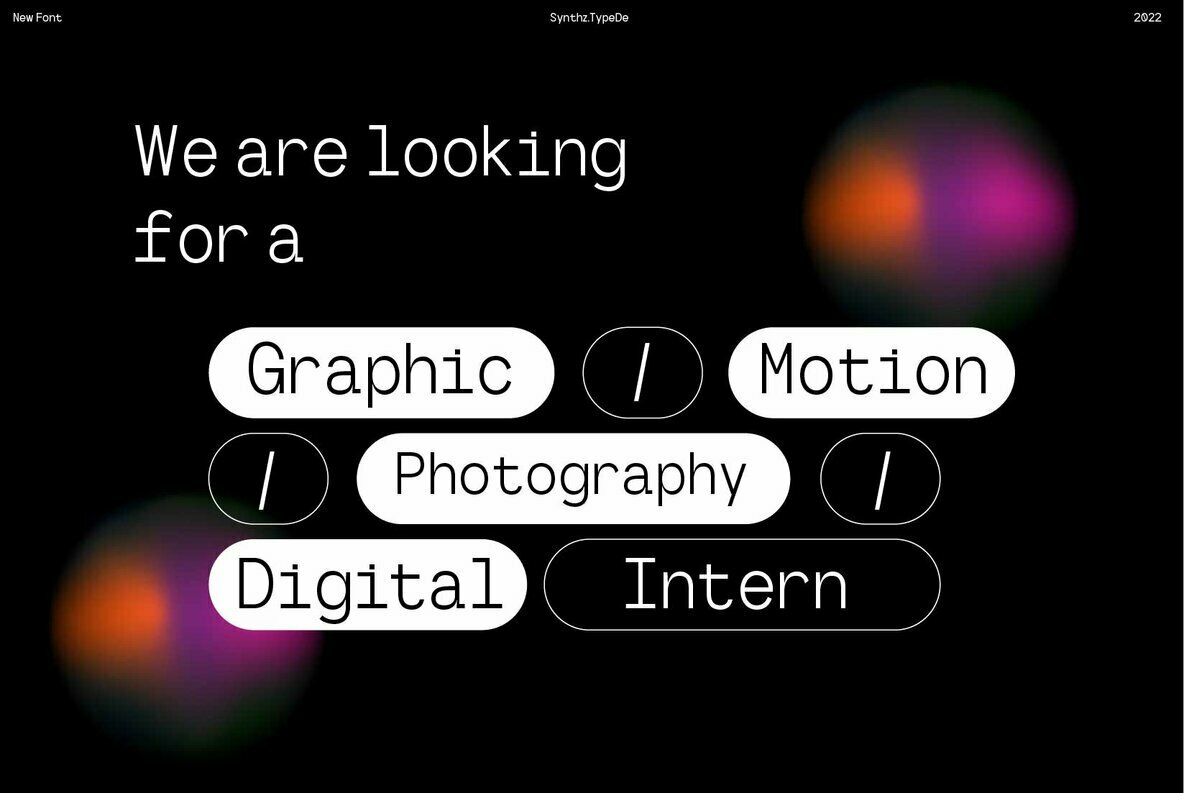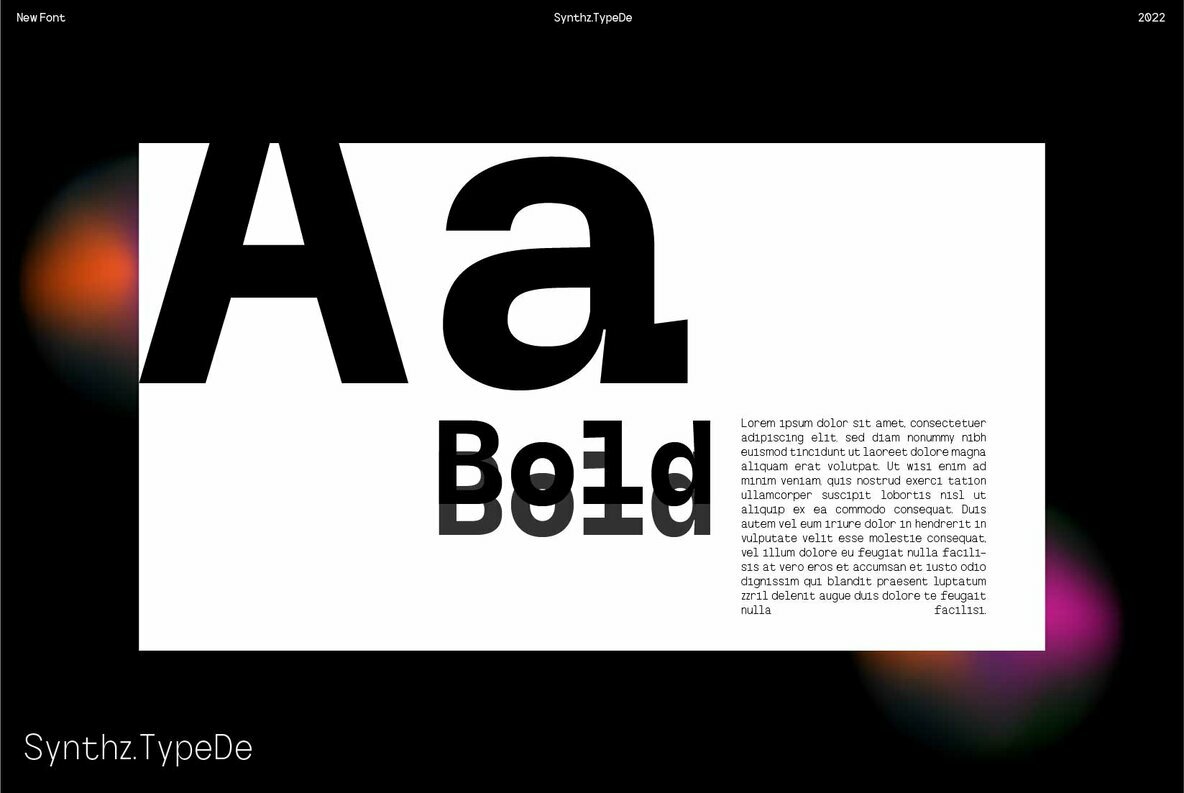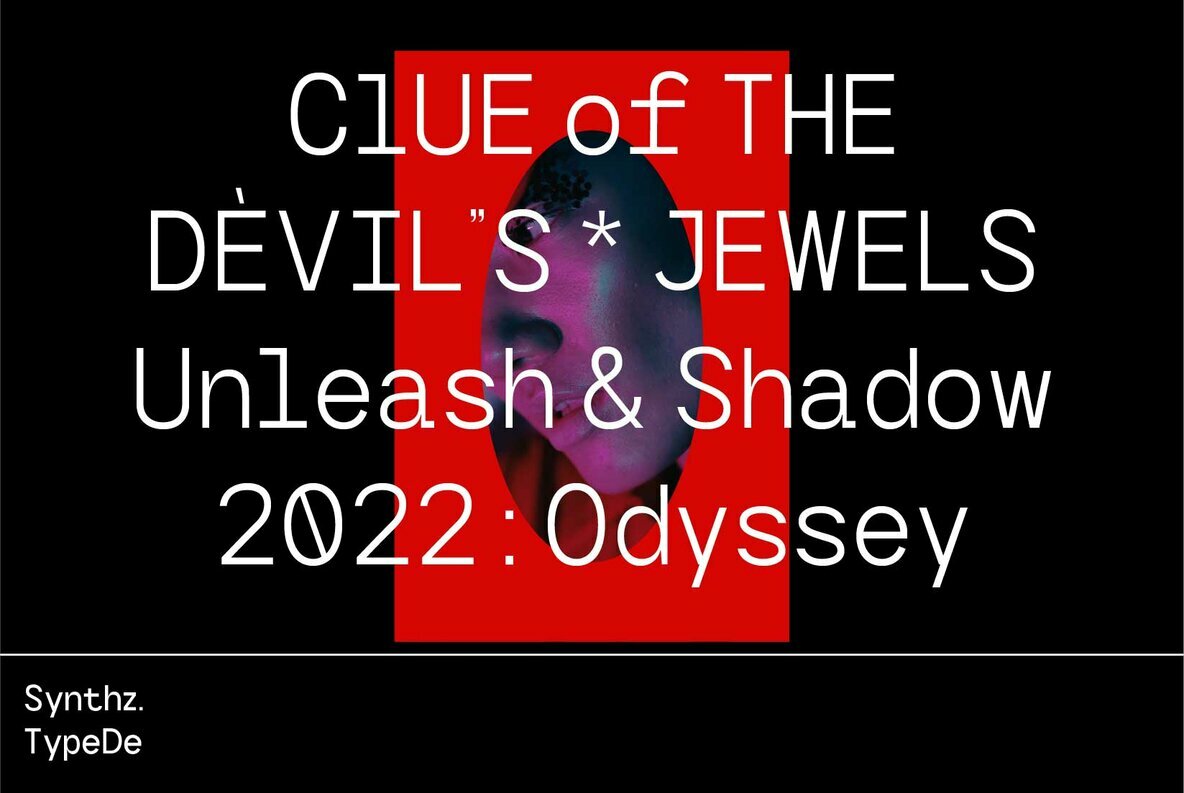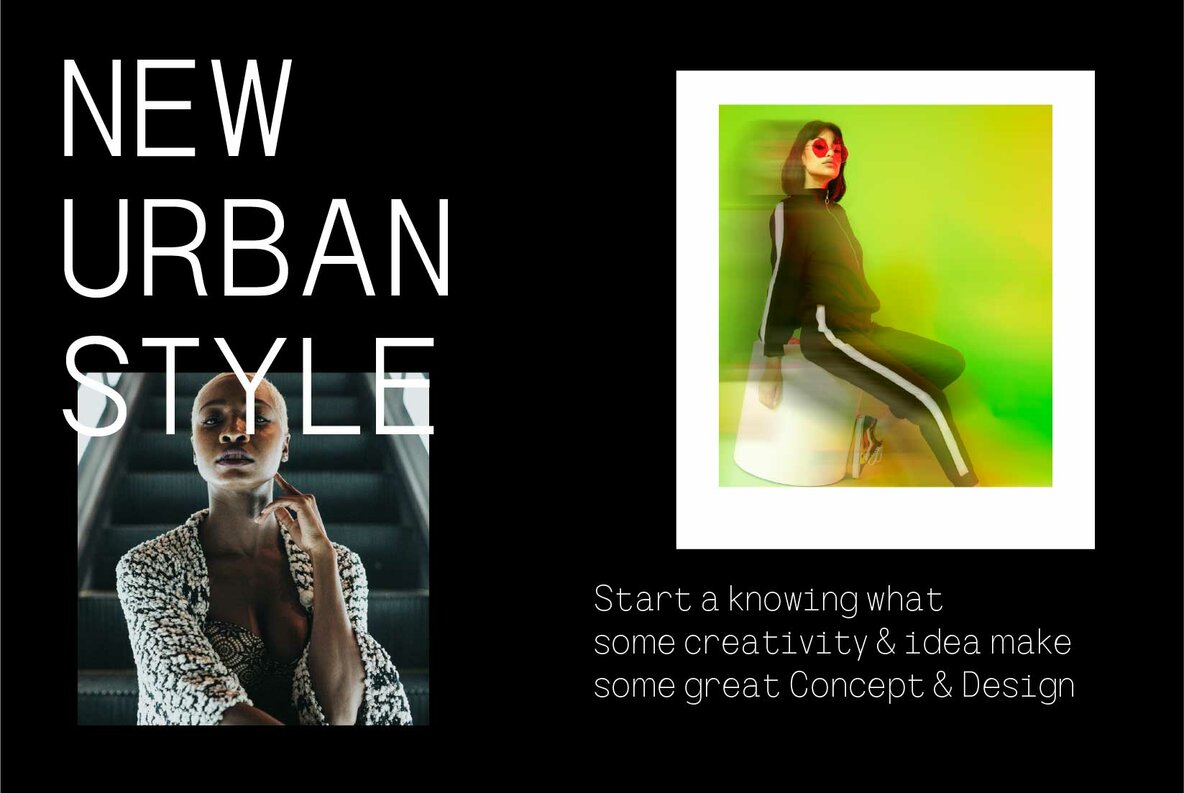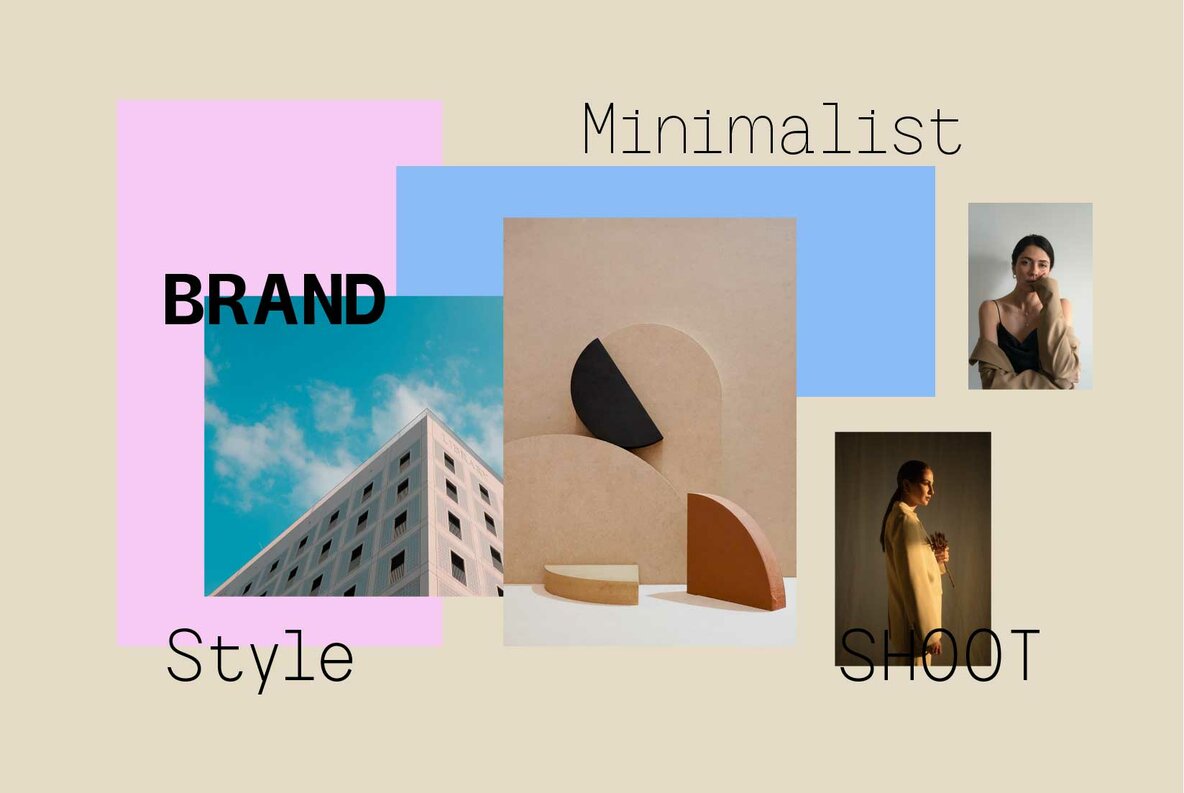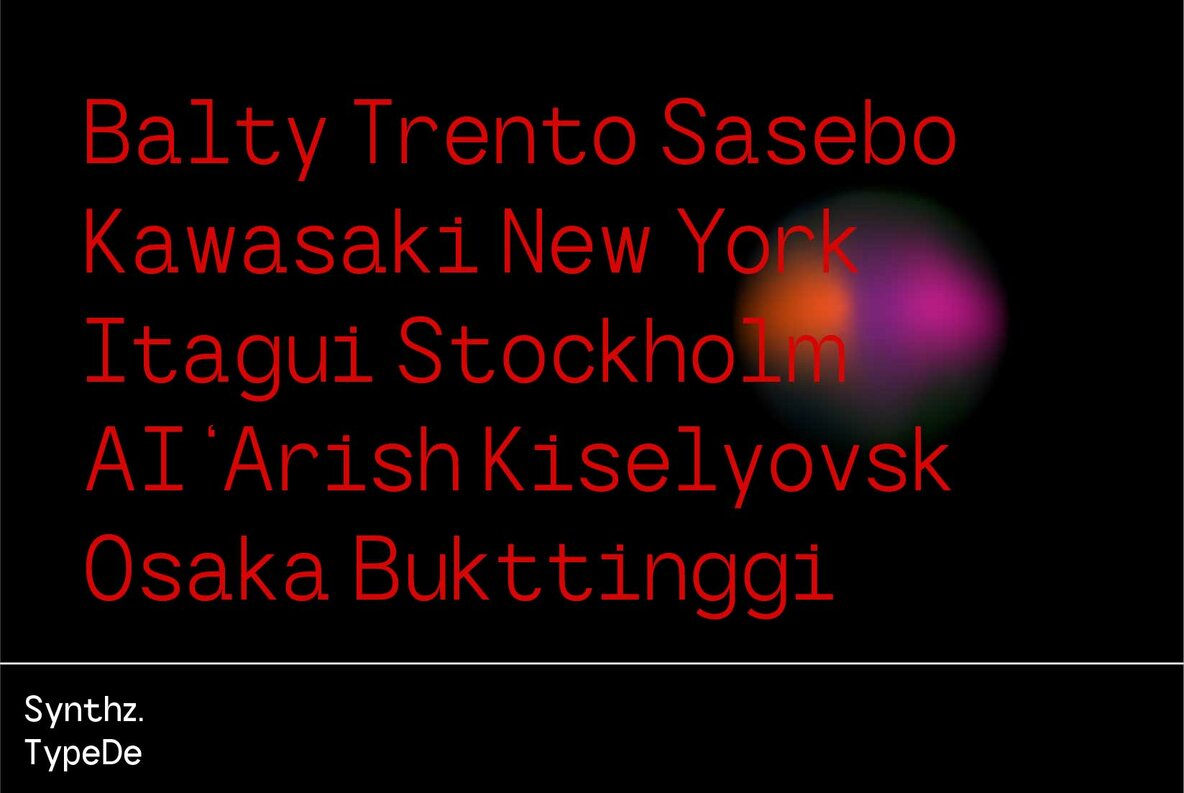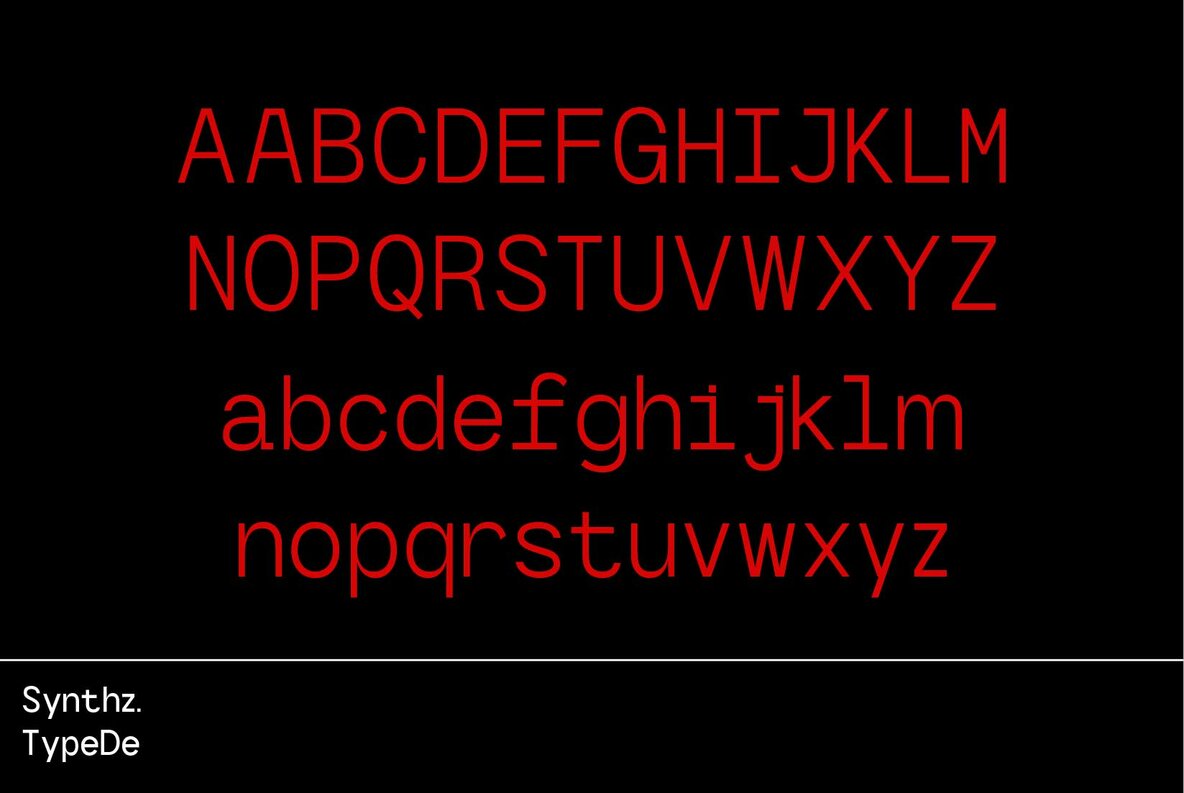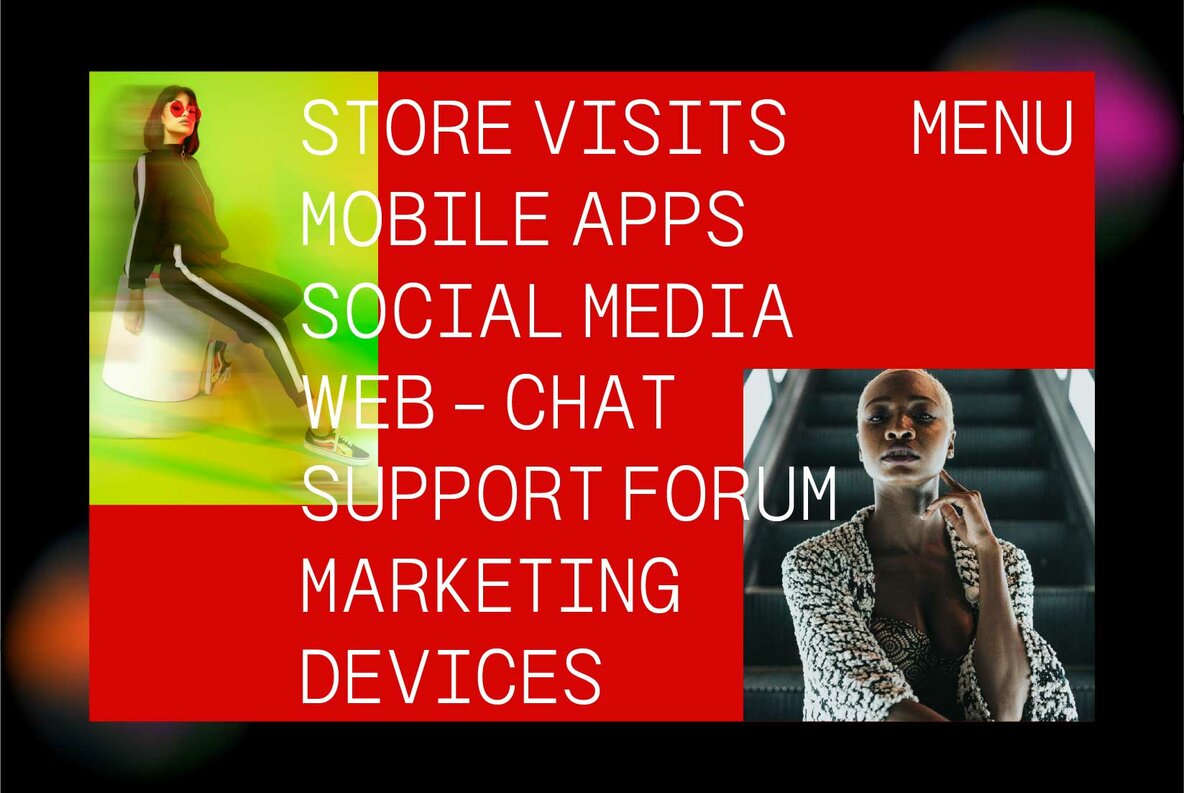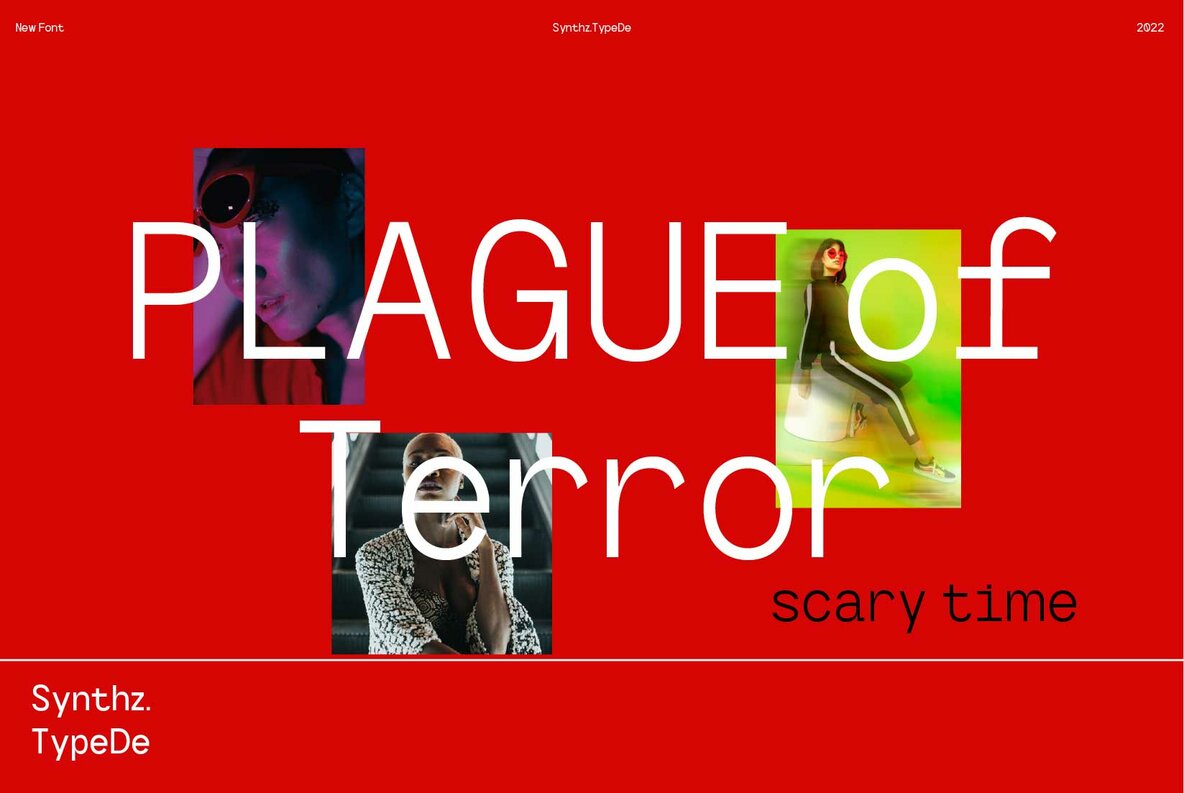
Lab Mono Font
Lab Mono is a neo-grotesque sans-serif design, based on the successful Basier font family. The result is a modern, neutral font family suitable for logo types, branding, editorial design, as well as web and screen designs.